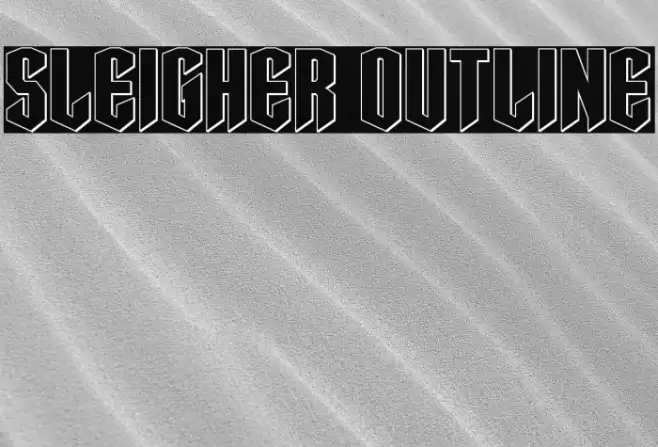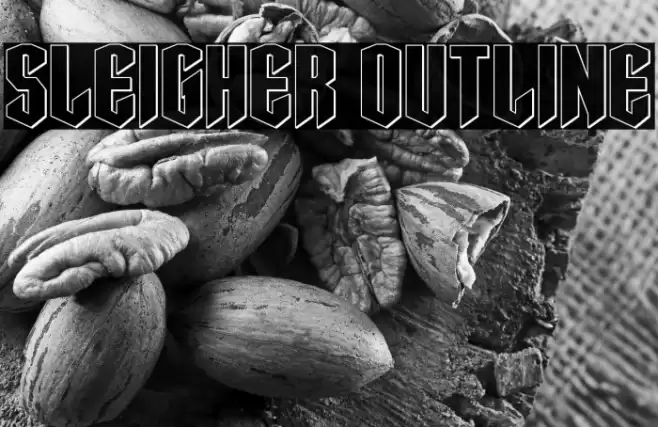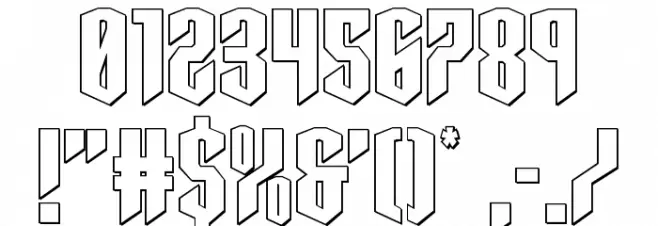
Sleigher Outline Font
Sleigher Outline Description
This font features a bold, outlined style with a distinct three-dimensional appearance. The characters are angular and geometric, giving them a strong, impactful presence. The uppercase and lowercase letters maintain a consistent height, contributing to a uniform look. The numbers and special characters are designed with the same bold outline, ensuring cohesion across all elements. This font's unique style makes it ideal for attention-grabbing designs, where a modern and edgy aesthetic is desired. The outlined nature of the characters allows for creative use of color and background, enhancing its versatility in various design contexts.
A bold, outlined font with a three-dimensional, geometric style from Uncategorized fonts.
- Proposed Projects: Ideal for posters, album covers, video game titles, and branding projects that require a modern and edgy look.